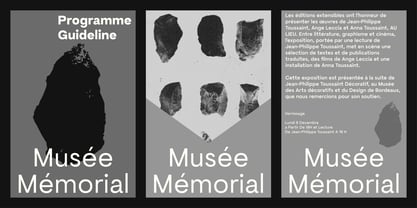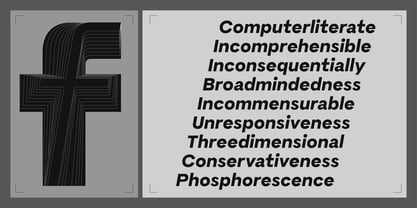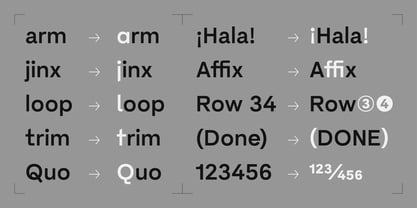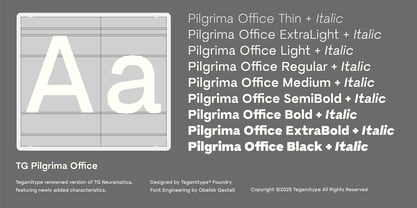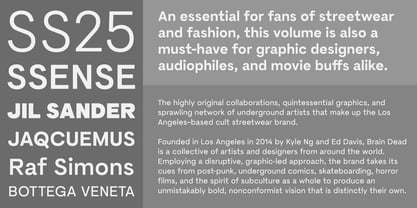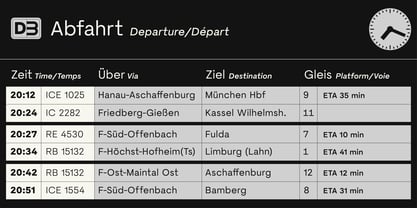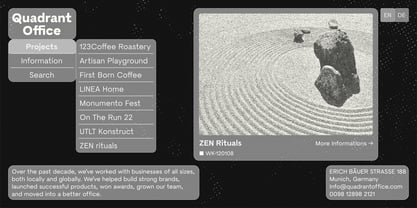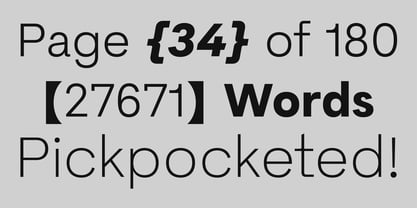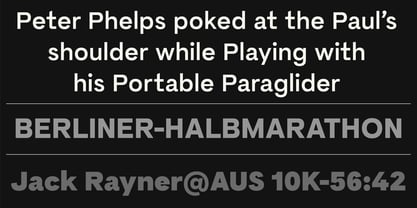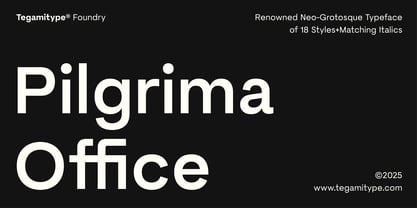
TG Pilgrima Office
by Tegami Type
The TG Pilgrima Office Font Family was designed by Iqbal Firdaus and published by Tegami Type. TG Pilgrima Office contains 19 styles and family package options.
TG Pilgrima Office is a new sans serif digital typeface, evolved from the structural framework of TG Neuramatica. With a new identity, refined design details, and expanded OpenType features, it is built to meet the nuanced demands of contemporary design work. Carefully designed for clarity and a clean, modern aesthetic, TG Pilgrima Office performs reliably across a wide range of applications—whether in small point sizes, mid-scale layouts, or large display settings. Its versatility makes it well-suited for branding, editorial, and digital projects that prioritize consistency and visual harmony.
TG Pilgrima Office includes 18 styles comprising uprights and italics, and supports a full Latin character set. It features variable font capability along with a comprehensive suite of OpenType enhancements such as ligatures, alternates, fractions, and more—carefully optimized for both print and digital environments. TG Pilgrima Office offers a balanced combination of precision and flexibility, giving designers a robust tool for thoughtful and adaptable typography.